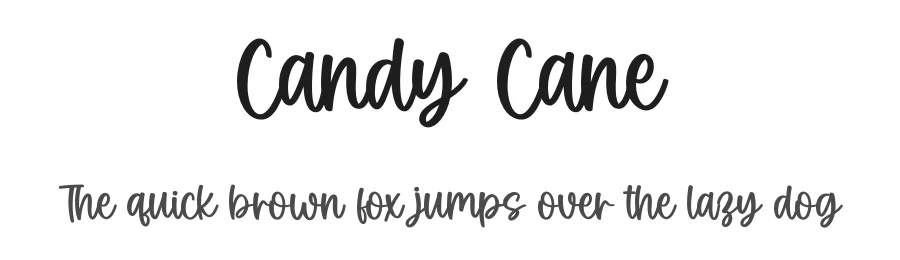
About Dollem Falls Font
Dollem Falls Specifications
| Font Family | Dollem Falls |
| Full Name | DollemFalls |
| Glyph Count | 230 glyphs |
| PostScript Name | DollemFalls |
| Designer | VZtype |
Dollem Falls ships with 1 OpenType feature you can switch on in apps that support them (Illustrator, InDesign, Affinity, Figma, CSS font-feature-settings).
Dollem Falls supports 224 languages.
Dollem Falls Font is a script font that shines as a display or heading face. Pair it with a clean sans-serif or serif font for body text β the contrast creates a clear hierarchy while the two styles stay balanced and easy to read.